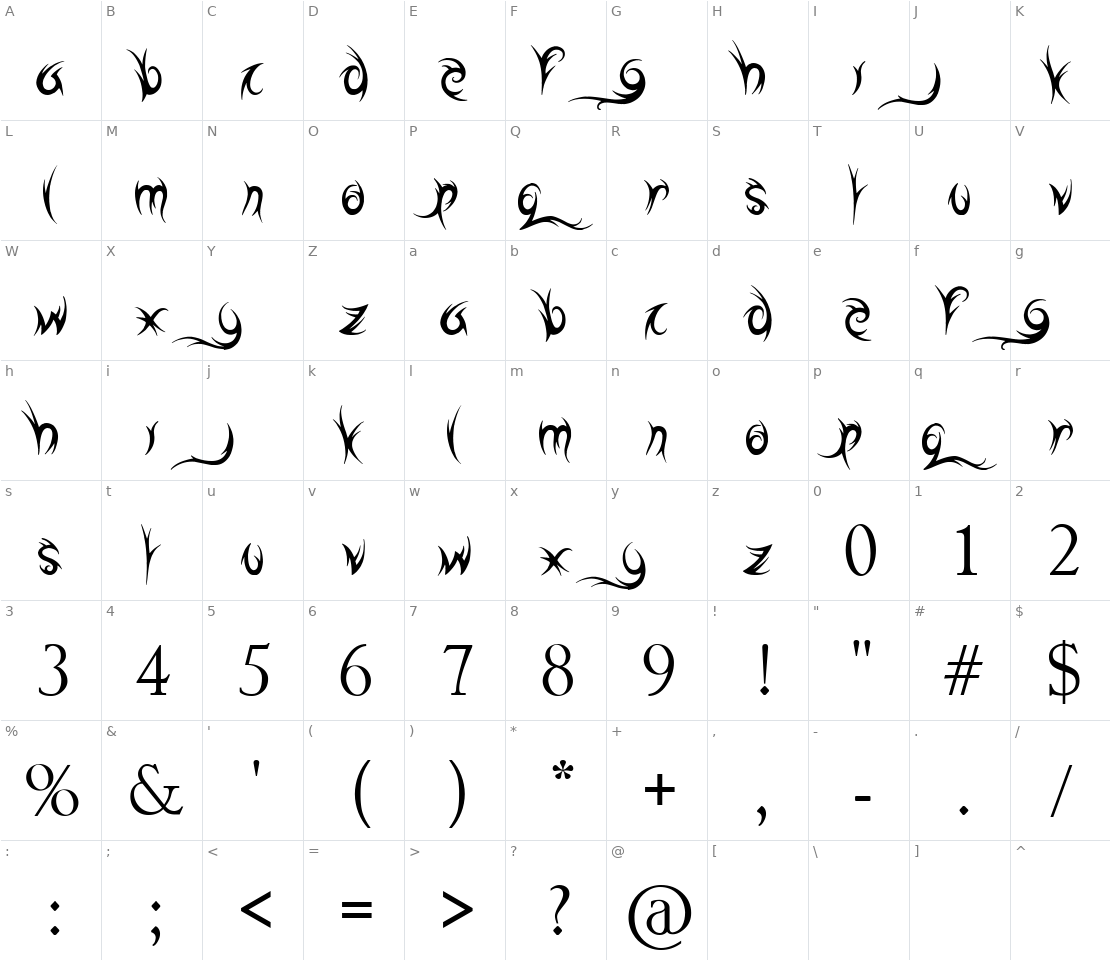
Highway to Hell
Highway to Hell is a sharp, aggressive decorative face from Jonathan S. Harris that fuses tribal detailing with gothic letterforms, all jagged points and menacing curves. The dark, edgy character shapes feel right at home on metal album covers, horror posters, and tattoo-inspired graphics. Strictly a headline face, where the intricate, blade-like details can be read without turning into visual noise.